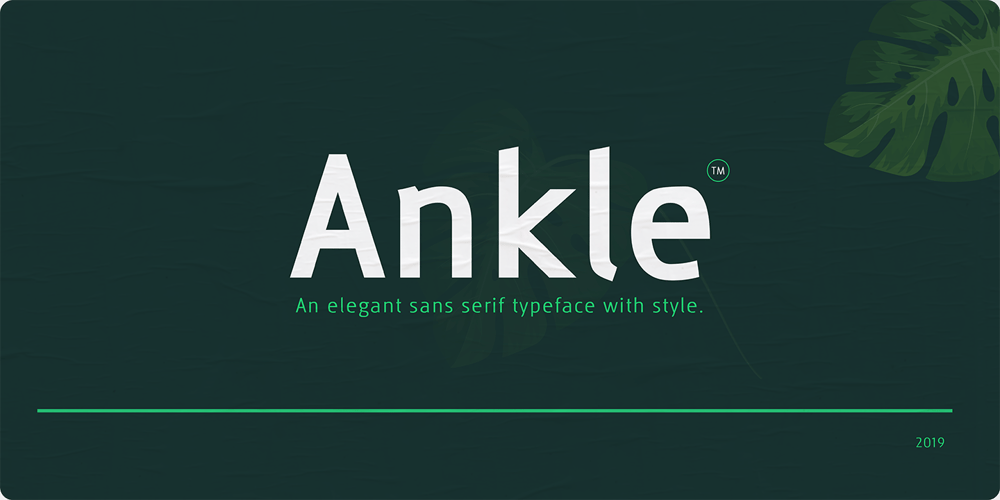
Ankle
Ankle font
Ankle Font Family was designed by Afotey Clement Nii Odai and published by VType. Ankle contains 4 styles and family package options. An elegant sans serif typeface with style. Fashionable, classy but still modern! Designed and shared by Vikers | RerdSystems. Perfect for logos, posters and more.